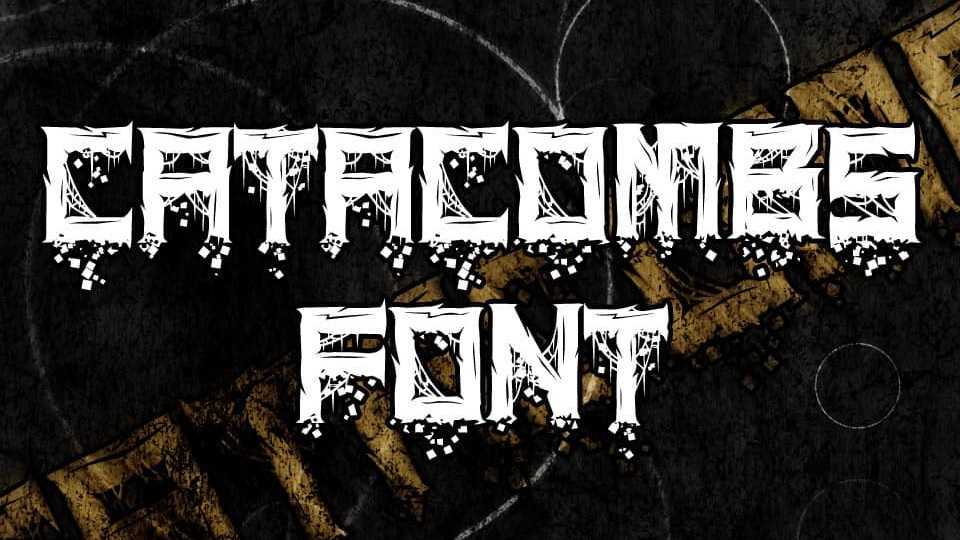
Download Catacombs font, a dark destroyed typeface with cracked edges and falling off bits. Catacombs font designed to fit Death Doom Metal band artworks and prints.